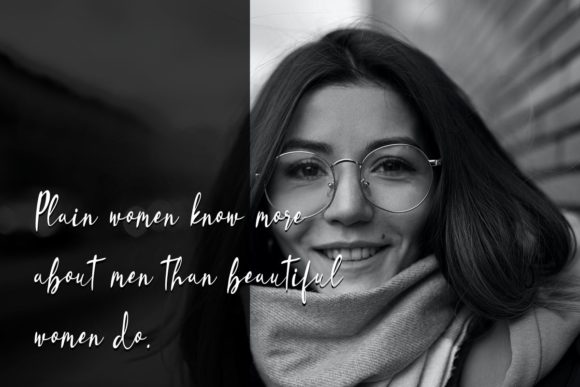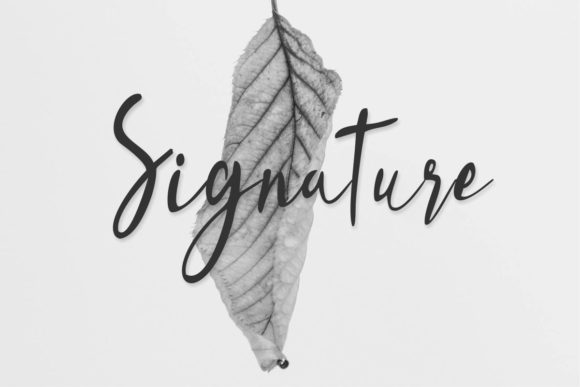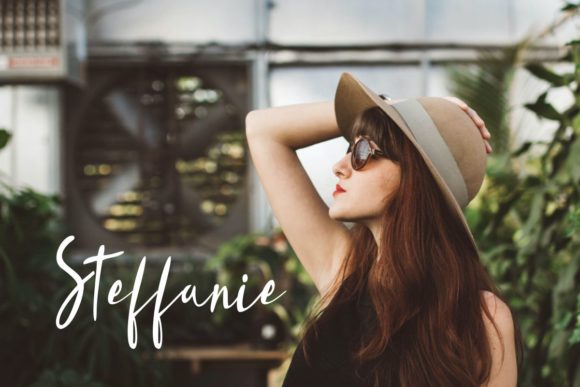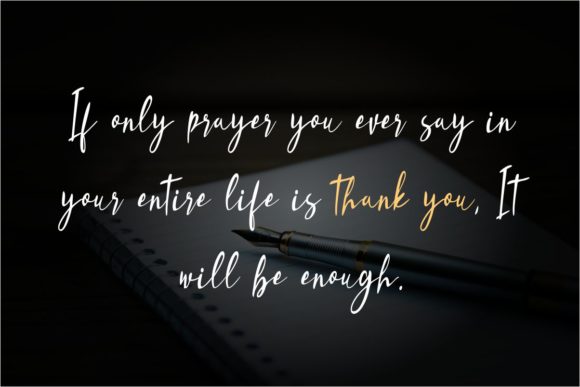
Introducing Handmade Signature Font: Elevate Your Holiday Projects with a Personal Touch
Are you tired of using generic fonts that lack personality in your holiday projects? Look no further than the Handmade Signature font, an amazing handwritten font that adds a touch of warmth and authenticity to your designs. With its attractive and natural look, this font is sure to take your holiday projects to the next level!
The Charm of Handmade Signature Font
Handmade Signature is a beautifully crafted handwritten font that exudes a sense of personality and charm. Its unique and irregular strokes give it a human touch, making it perfect for adding a personal element to your designs. Whether you’re working on holiday cards, invitations, or social media graphics, this font is sure to make your projects stand out.
Why Choose Handmade Signature Font?
- Unique and Eye-Catching: Handmade Signature font is unlike any other font you’ve seen before. Its distinctive look is sure to grab attention and leave a lasting impression.
- Natural and Authentic: This font has a wonderfully natural look that makes it perfect for creating holiday projects that feel warm and inviting.
- Versatile: Handmade Signature font can be used for a wide range of projects, from holiday cards and invitations to social media graphics and blog posts.
Tips for Using Handmade Signature Font
To get the most out of Handmade Signature font, here are a few tips to keep in mind:
- Keep it Simple: Don’t be afraid to keep your design simple and let the font be the star of the show. Handmade Signature font is beautiful on its own, so don’t feel like you need to add a lot of extra elements.
- Experiment with Colors: Handmade Signature font looks great in a variety of colors, so don’t be afraid to experiment and find the perfect hue for your project.
- Mix and Match: Try pairing Handmade Signature font with other fonts to create a unique and interesting look.
Handmade Signature font is perfect for designers and crafters who want to add a personal touch to their holiday projects. Whether you’re creating custom holiday cards, decorations, or gifts, this font is sure to help you create something truly special.
What You Can Create with Handmade Signature Font
The possibilities are endless when it comes to creating with Handmade Signature font! Here are a few ideas to get you started:
- Holiday Cards: Create custom holiday cards that are truly one-of-a-kind with Handmade Signature font.
- Invitations: Design beautiful holiday invitations that set the tone for your festive gatherings.
- Social Media Graphics: Add a personal touch to your holiday social media graphics with Handmade Signature font.
- Blog Posts: Use Handmade Signature font to add a touch of personality to your holiday blog posts.
| Font Name | Handmade Signature Font |
In conclusion, Handmade Signature font is an amazing handwritten font that is sure to elevate your holiday projects to the next level. With its unique and eye-catching look, natural and authentic feel, and versatility, this font is perfect for designers and crafters who want to add a personal touch to their creations. So why wait? Download Handmade Signature font today and start creating holiday projects that are truly unforgettable!